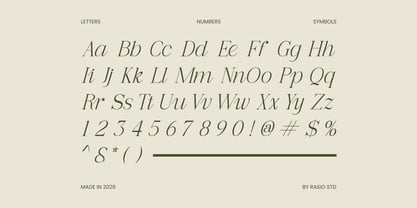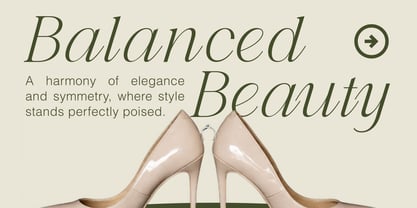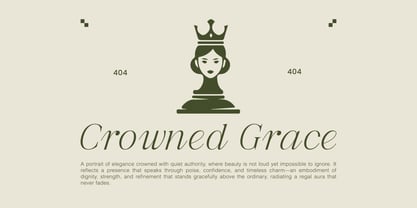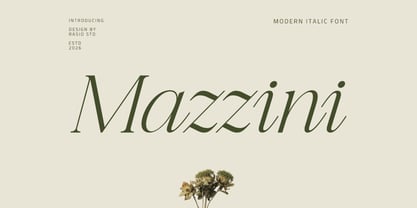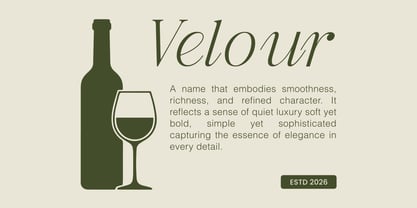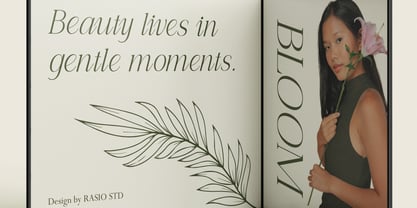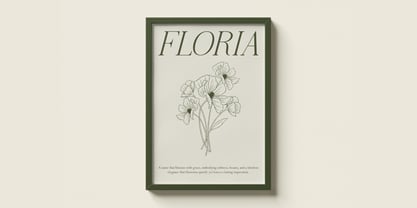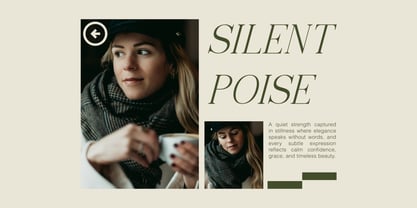
Mazzini
by Rasio Studio
The Mazzini Font Family was designed by Fajar Indra and published by Rasio Studio. Mazzini contains 1 styles. More about this family
Mazzini is a modern italic serif typeface designed to express quiet strength, refined elegance, and timeless sophistication. Featuring graceful slanted forms, delicate high-contrast strokes, and subtle calligraphic influences, Mazzini creates a fluid rhythm that feels both contemporary and classic. Mazzini is perfectly suited for luxury fashion brands, editorial magazines, boutique identities, lifestyle campaigns, beauty and skincare packaging, wedding branding, and high-end marketing materials. Its elegant italic flow makes it ideal for logo design, sophisticated headlines, lookbooks, invitation designs.
Designers: Fajar Indra
Current Foundry: Rasio Studio